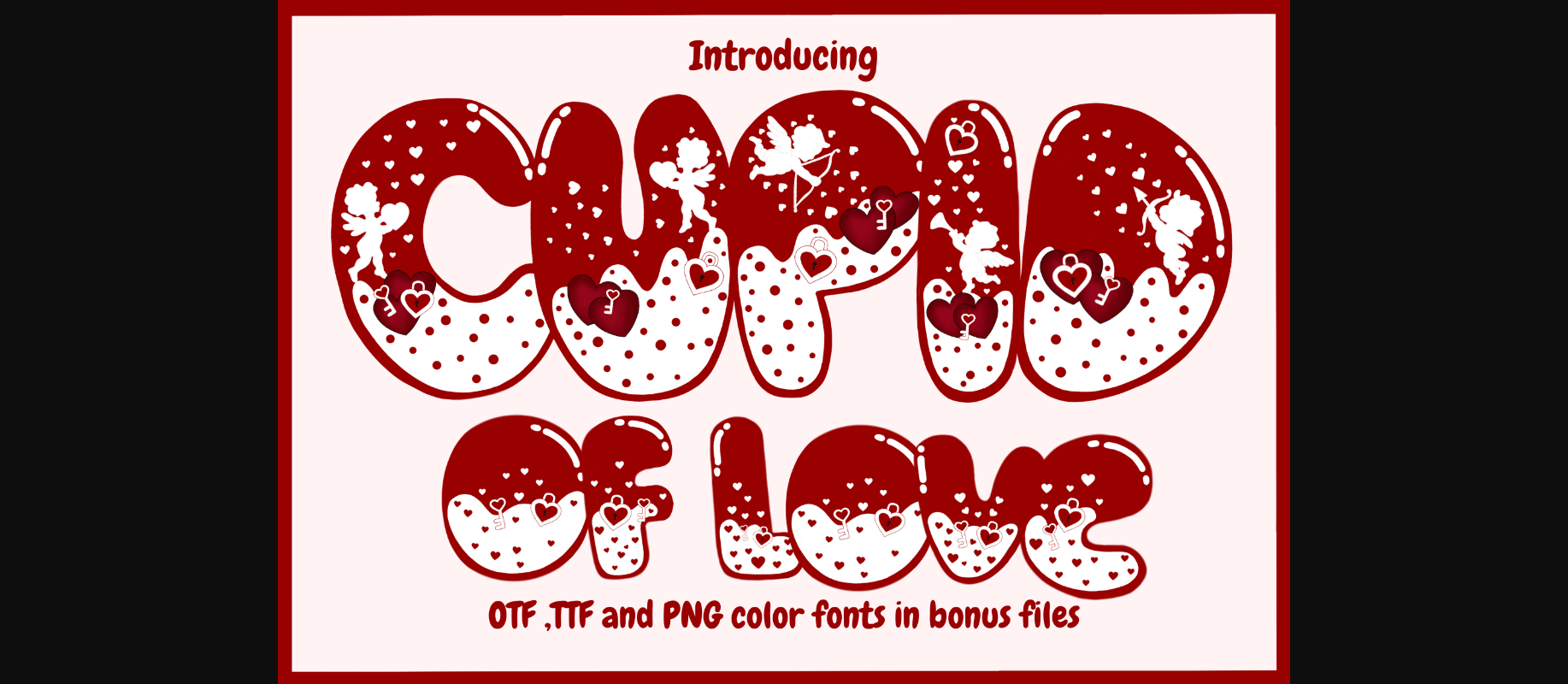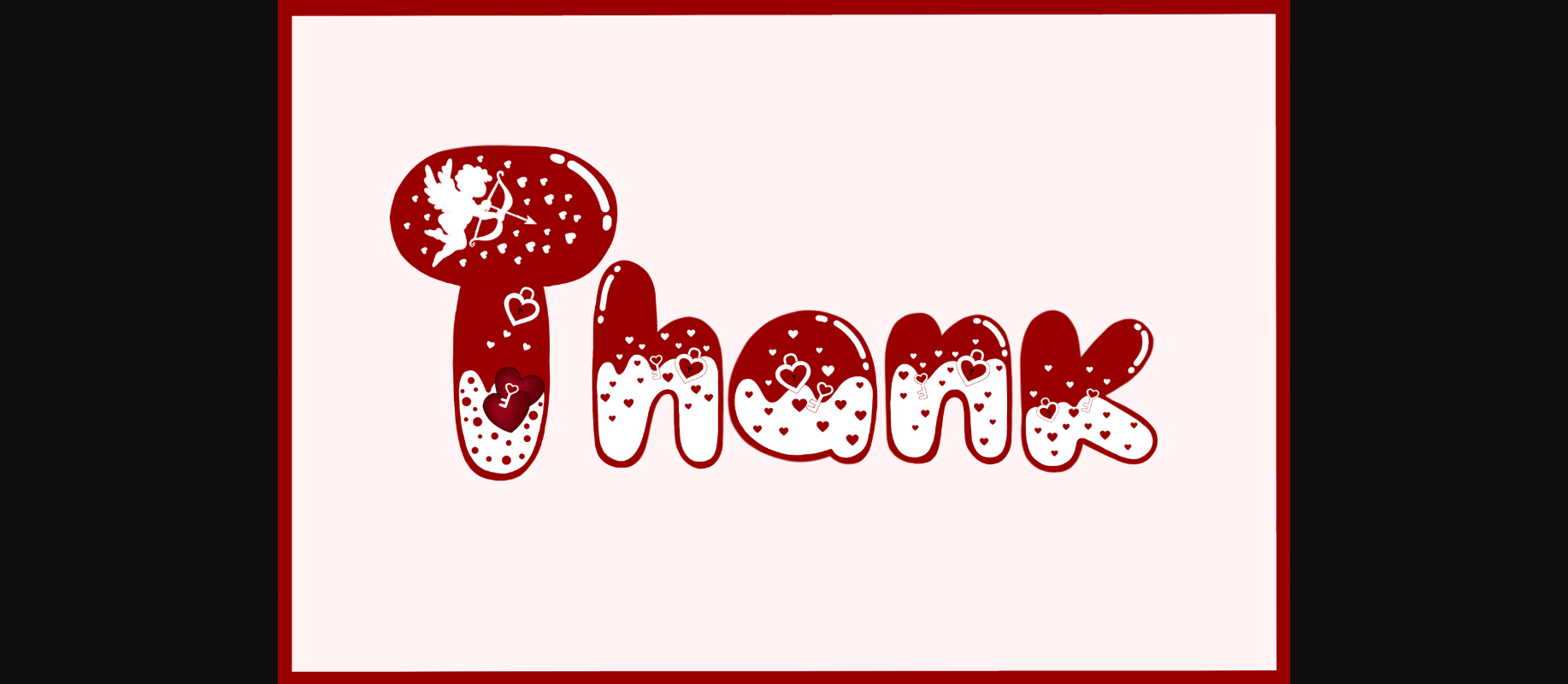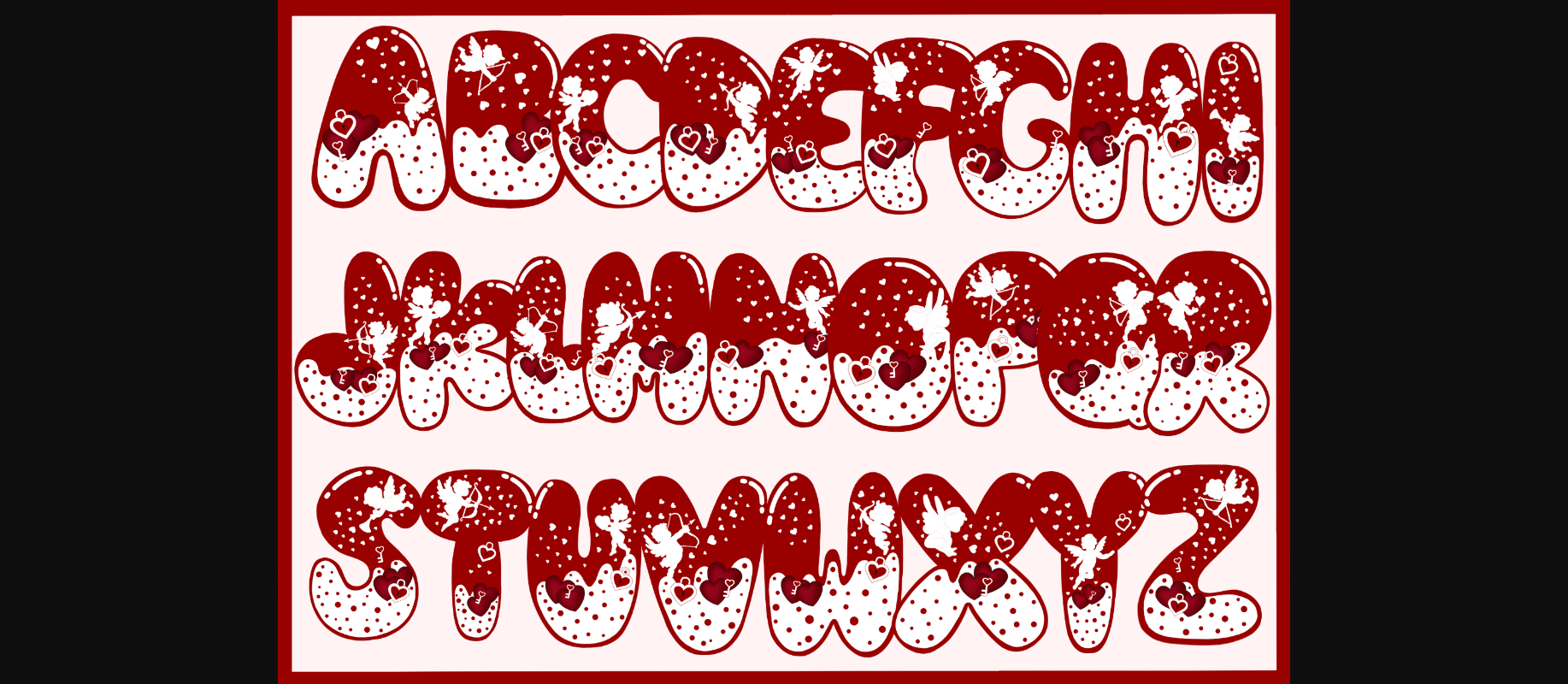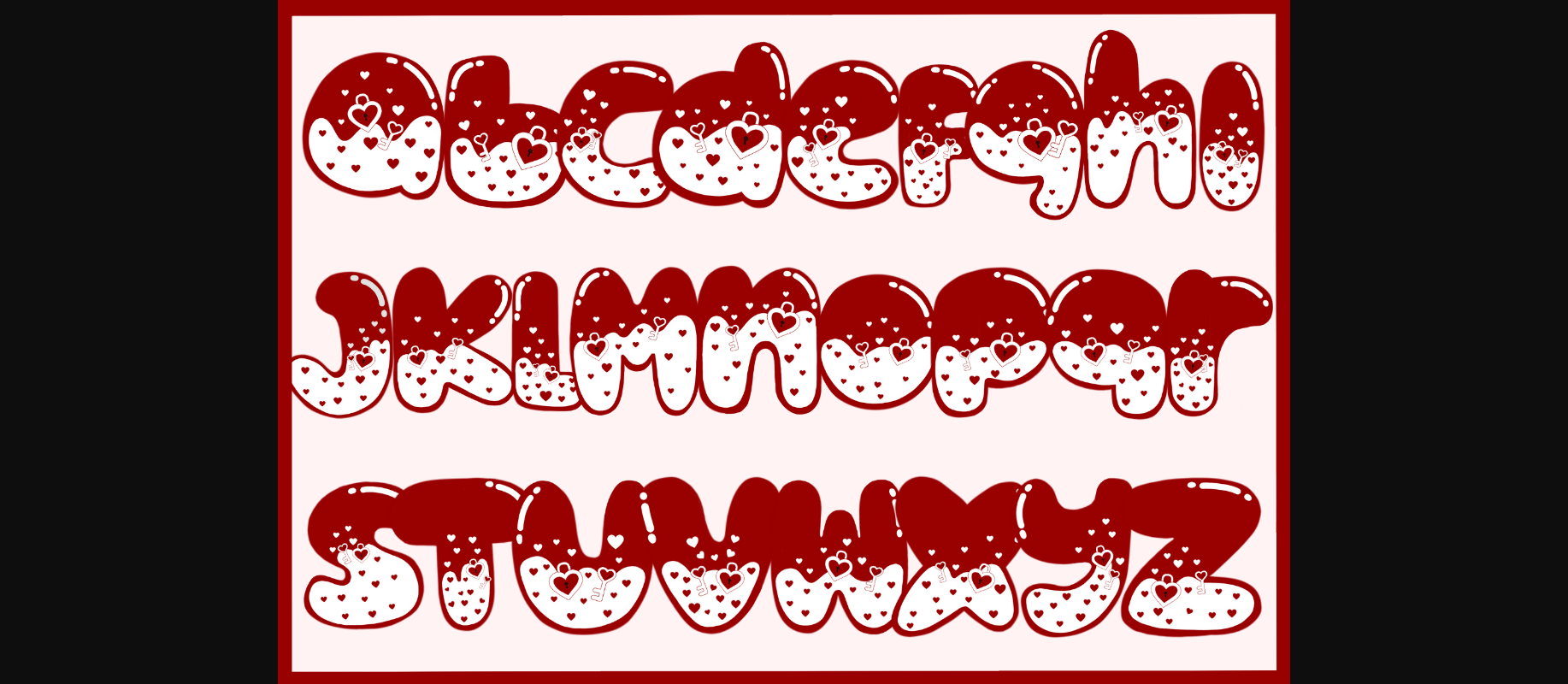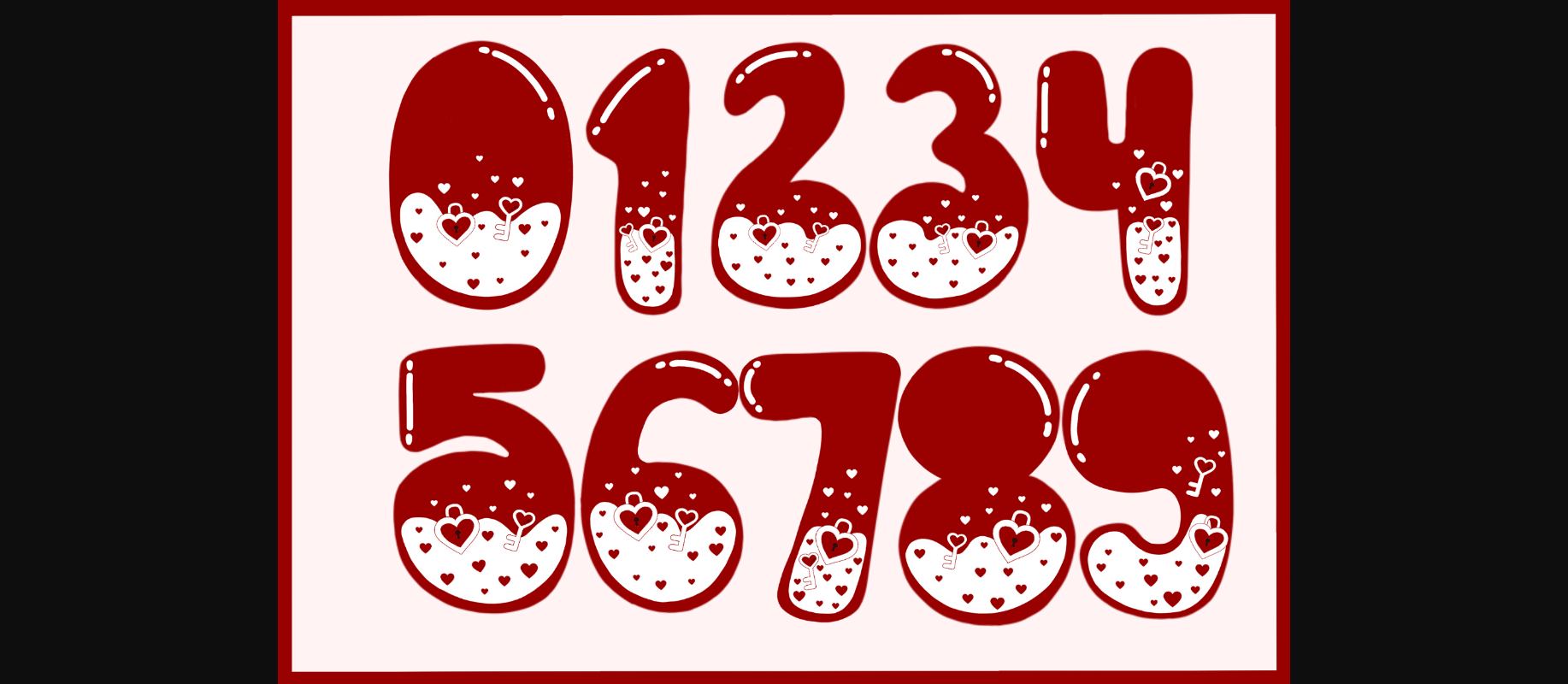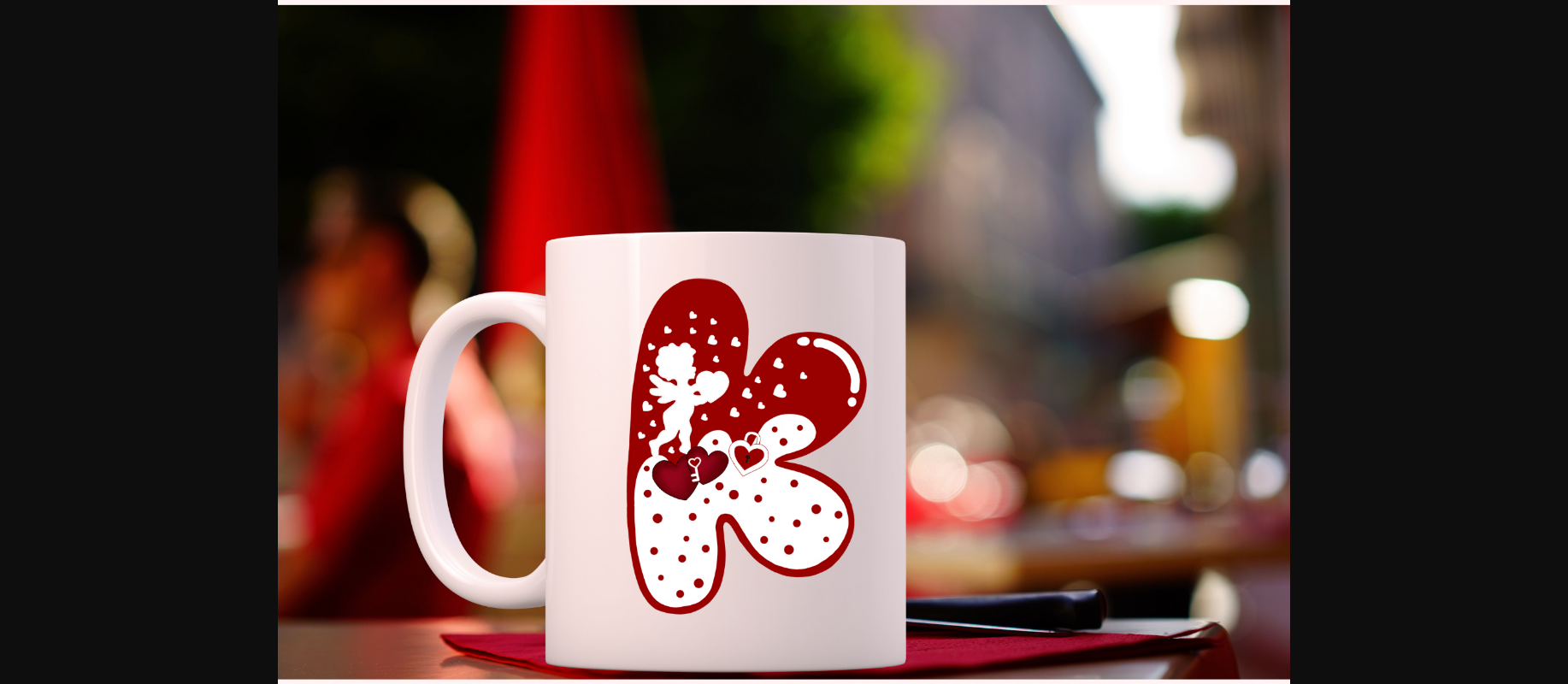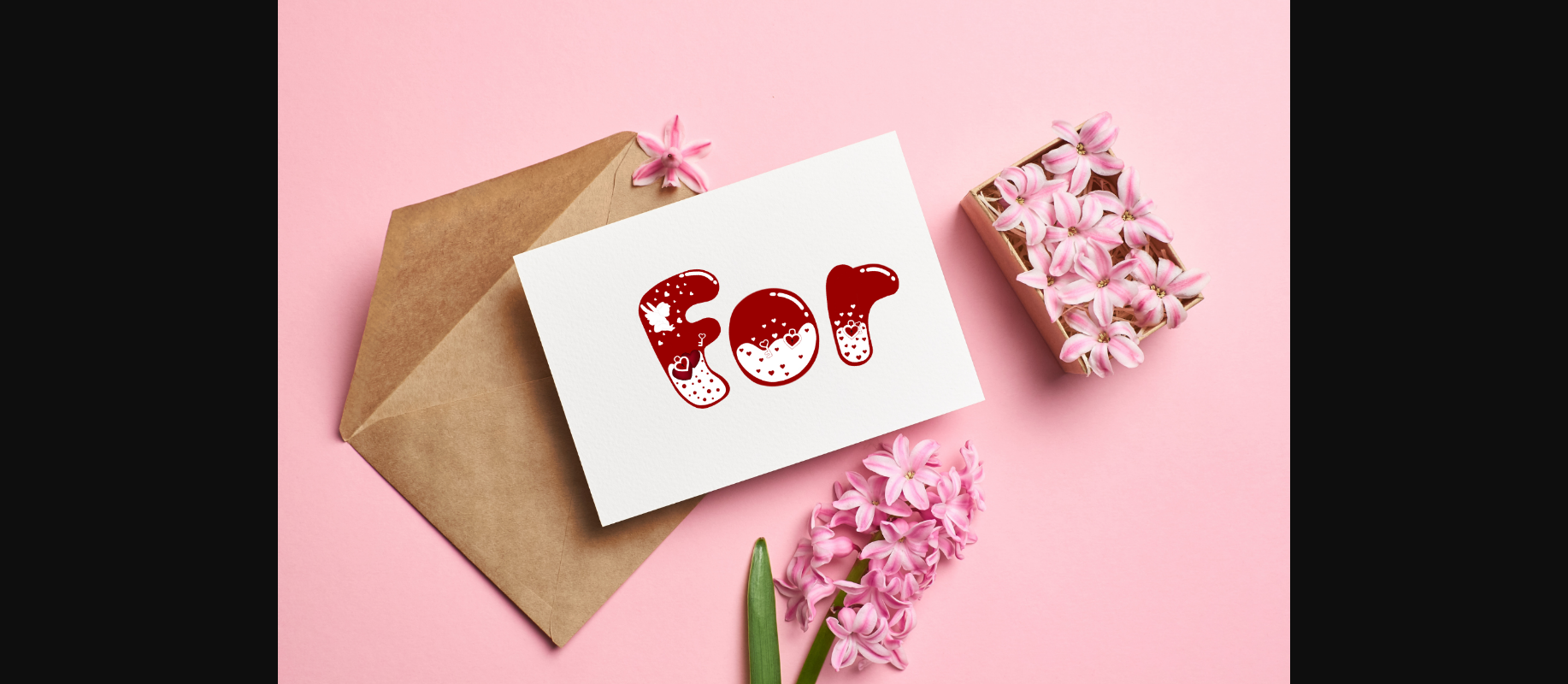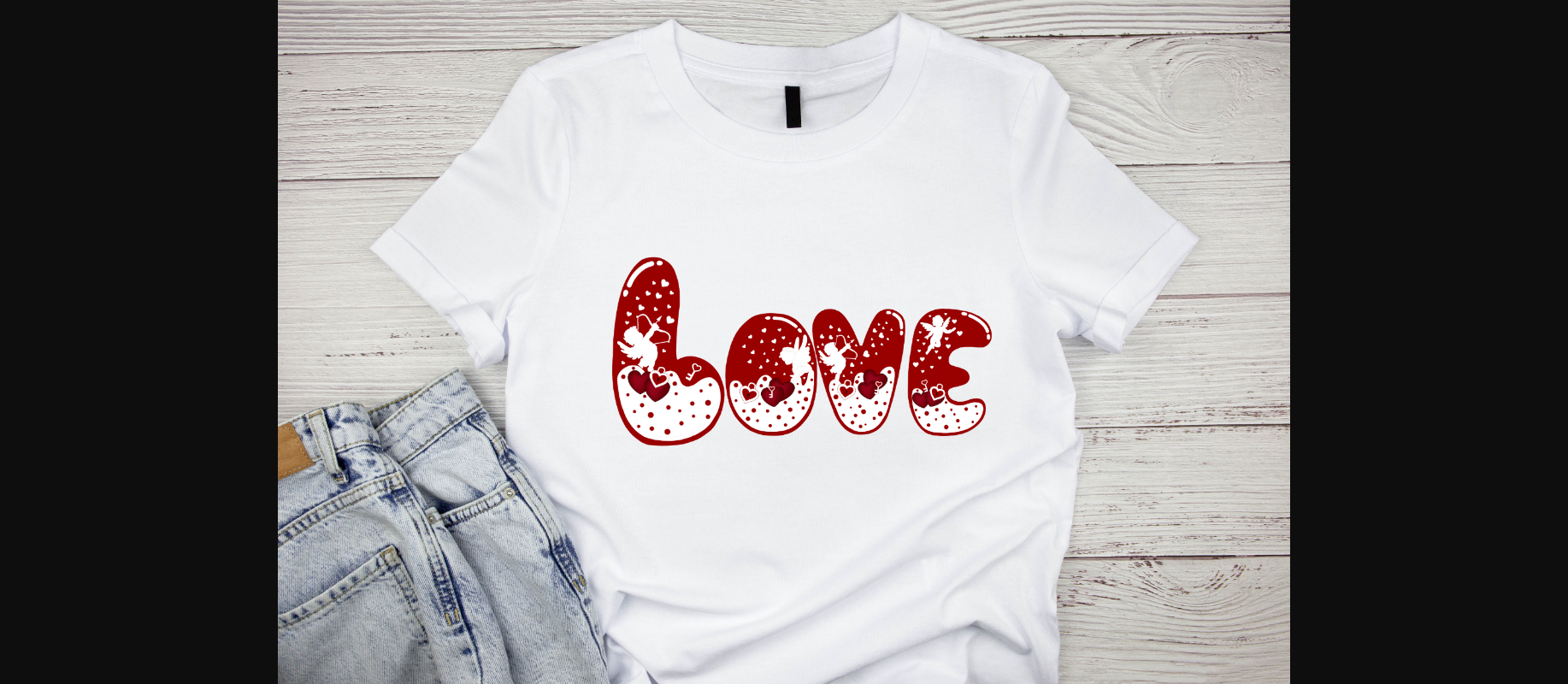
Cupid of Love Font
Cupid of Love so cute fonts, suitable for use with this year’s Valentine’s Day, wedding cards, invitations, greeting cards, decorations, and room decorations. and various products such as clothing and equipment for this Valentine’s Day.